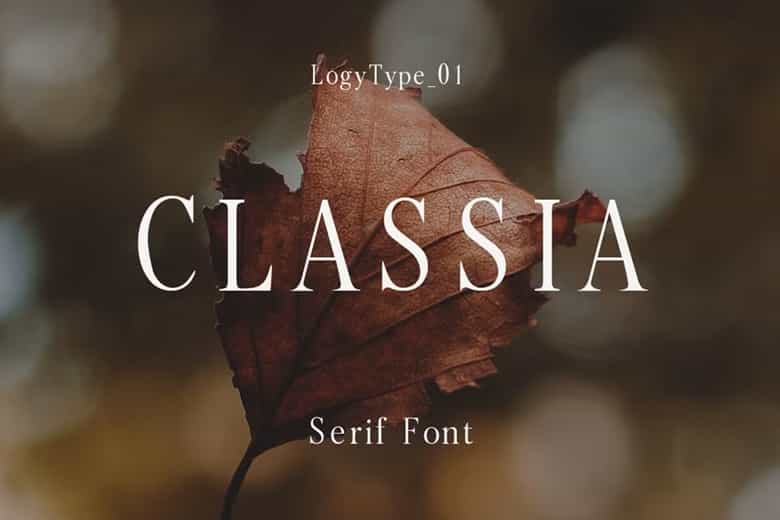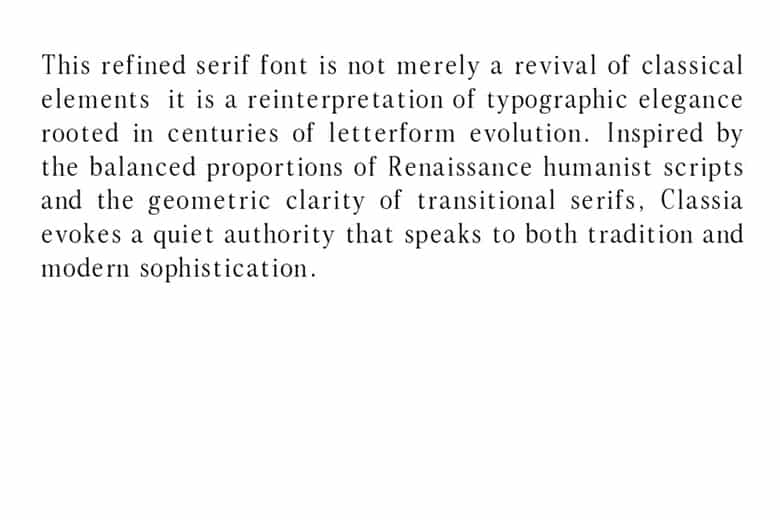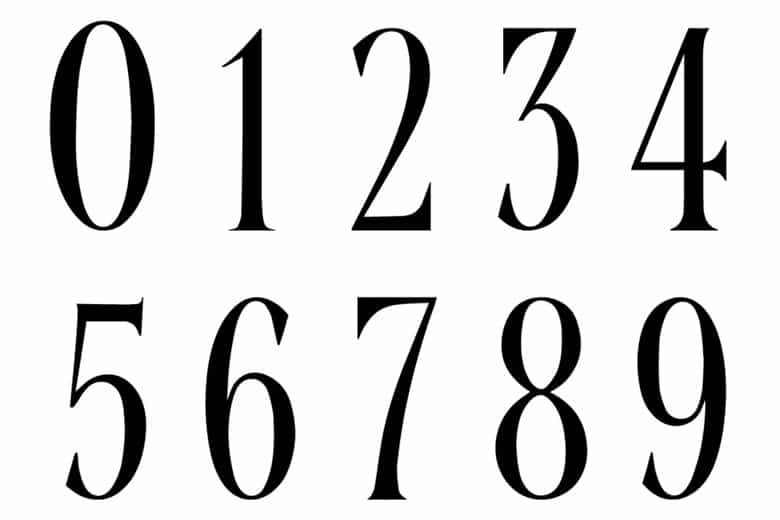
Classia is an elegant, refined, and traditional serif typeface. Delicate, smooth shapes, harmonious proportions, and classy accents make this font the style that adds the flair of tradition and class to your projects. A perfect high end brand font, ideal in editorial layovers, invitations, etc. This font embodies the aesthetic of classic typography with a modern, clean feel.